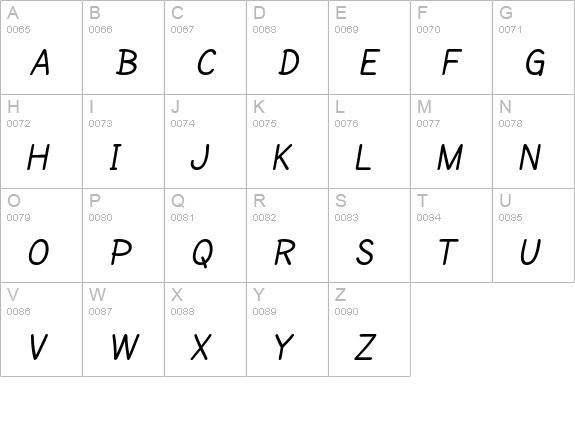
SF Cartoonist Hand Font Details
SF Cartoonist Hand font is a playful and whimsical typeface that brings a touch of fun to any design project. With its quirky and hand-drawn style, this font is perfect for adding a lighthearted and cheerful vibe to children's books, comic strips, posters, and more. Designed with attention to detail, SF Cartoonist Hand captures the essence of hand-drawn cartoons with its uneven strokes and irregular letterforms. It exudes a sense of spontaneity and creativity, making it an excellent choice for projects that require a unique and youthful aesthetic. The versatility of SF Cartoonist Hand font allows it to be used in a variety of contexts. Whether you're working on a birthday invitation, a school project, or a brand logo, this font will add a touch of personality and charm to your design. One of the best things about SF Cartoonist Hand font is that it is available for free download at FontsMarket.com. This means that you can easily access and use this delightful typeface in your creative endeavors without any cost. FontsMarket.com offers a wide range of free fonts, and SF Cartoonist Hand is just one of the many gems you'll find on their website. So, if you're looking to add a dose of playfulness and joy to your designs, look no further than SF Cartoonist Hand font. Download it for free at FontsMarket.com and let your imagination run wild with this delightful typeface.